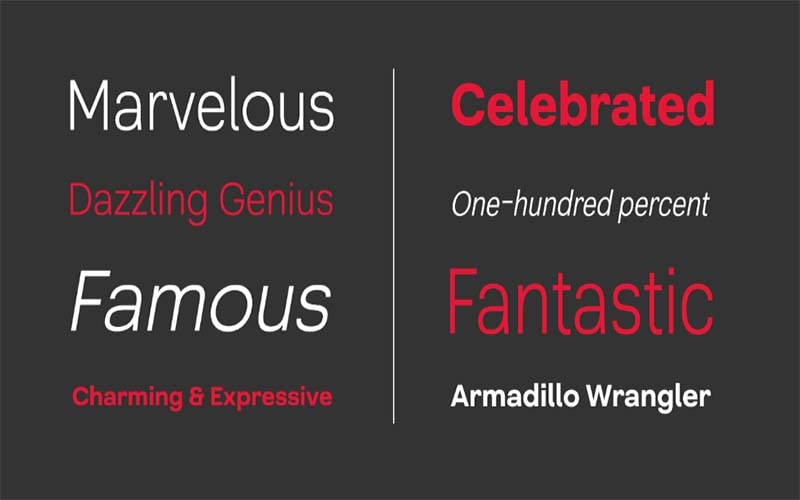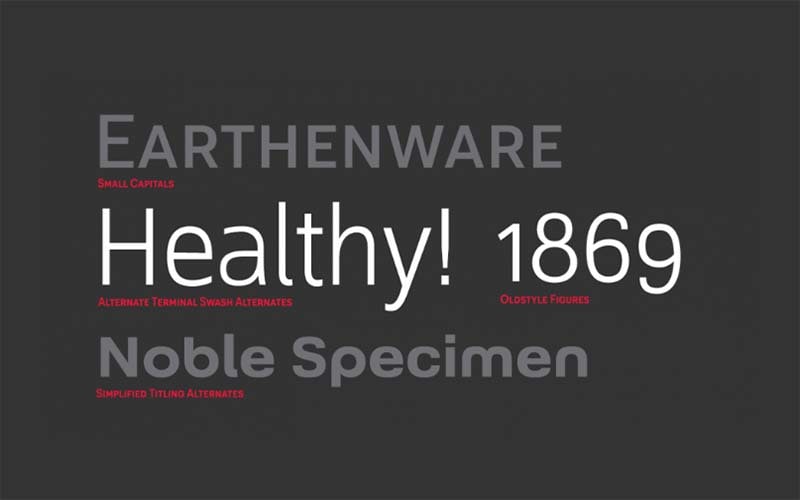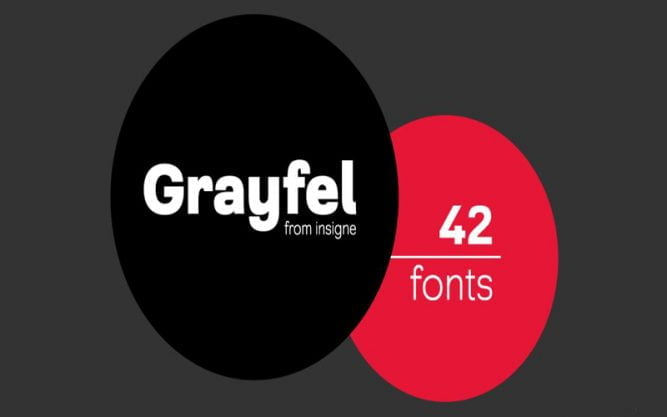
Grayfel Font is an elegant basic sans serif typeface that has come in a unique and eye-catching look. The font designer Insigne took charge of designing it and releasing it for the first time.
This amazing display typeface has come in 42 unique styles including bold, bold italic, light, light italic, regular, medium, medium italic, extra bold italic, book, book italic, etc.
You can easily use this fine-quality font for various works such as display headlines, website headers, labels, poster making, hoardings, brochure layouts, banner ads, printing cards, and other creative projects.
It’s easy to see why Grayfel is one of the preferred beautiful fonts available online. Its gradual bold strokes give it a beautiful beauty that conveys the message of fun days and fresh ideas.
We can say that this is a versatile typeface that has been built firmly for the display task. And the best part is that all the letters have a clean structure without any mistakes. That way, they do look great.
In this way, almost all designs from small to large can be made accessible. And the best part is that without any other font help, you can create all sorts of great things with the help of help.